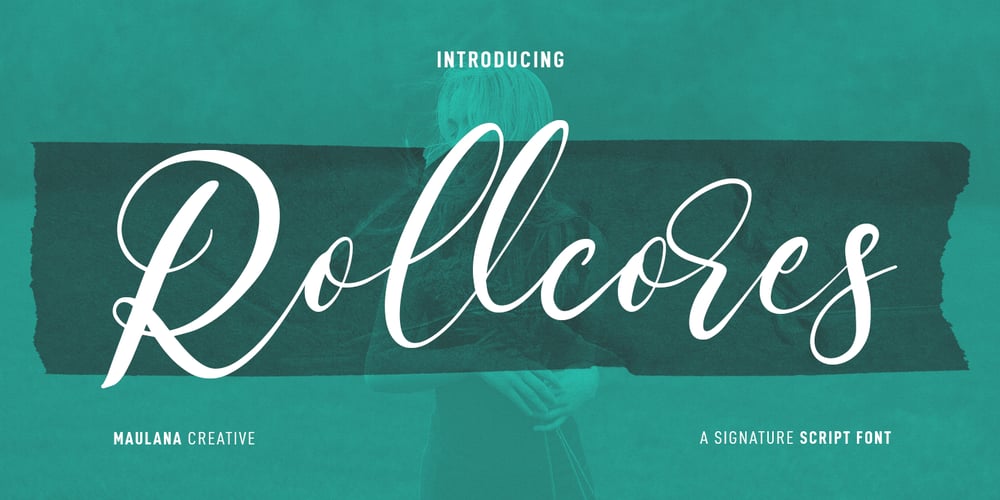
MC Rollcores Font Family was designed by Gilang Maulana and published by Maulana Creative. MC Rollcores contains 1 styles and family package options. Rollcores is a modern beauty signature script font. With high contrast stroke, fun character with a bit of ligatures and stylistic alternates. To give you an extra creative work. Rollcores font support multilingual more than 100+ language. This font is good for logo design, Social media, Movie Titles, Books Titles, a short text even a long text letter and good for your secondary text font with sans or serif. Make a stunning work with Rollcores font. Cheers, Maulana Creative